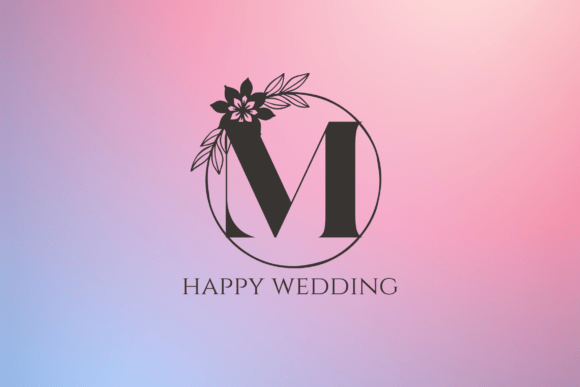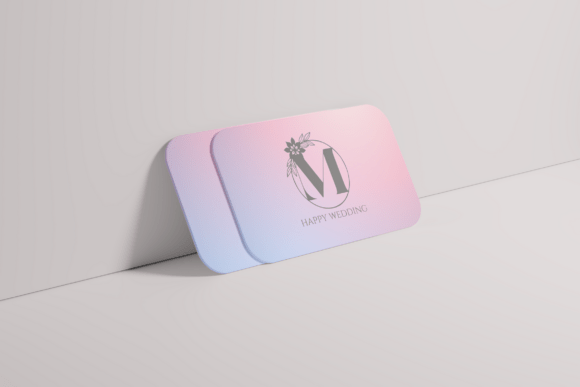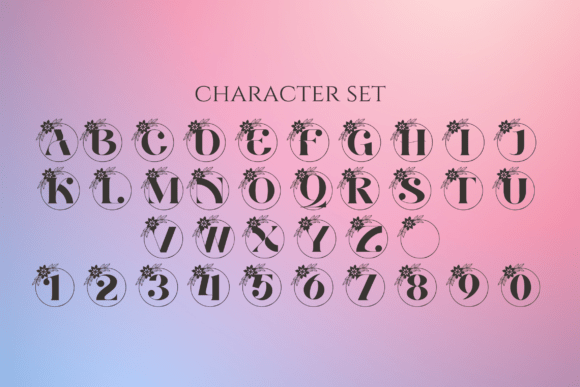
Introducing Amour Monogram Font: Elevate Your Designs with Elegance
Have you ever been in the midst of crafting a project, only to find yourself stuck on the perfect font? I recall a particularly frustrating experience while designing a wedding invitation for a close friend. The invitation needed to exude a sense of luxury and sophistication, but no matter which font I chose, it seemed to fall flat. That’s when I discovered Amour Monogram Font – a game-changer for anyone looking to infuse their designs with a touch of elegance and versatility.
The Perfect Blend of Style and Versatility
Amour Monogram Font is meticulously crafted to breathe life into majestic monograms, logos, and bespoke branding. Its tastefully refined letterings, complemented by intricate detailing, make it an irresistible choice for nuptial invitations, high-end branding, sophisticated stationery, and custom-crafted projects. Whether you’re creating an upscale logo or designing a cherished memento, Monogram Font infuses every endeavor with a unique allure and a timeless charm.
• ✨ Elegant and refined lettering that adds a touch of sophistication to any design
• ✅ Extensive range of OpenType features, glyphs, and stylistic alternates to experiment with
• 💫 Perfect for creating custom monograms, logos, and branding materials
• 👍 Highly versatile and adaptable to various design projects
While Amour Monogram Font is an exceptional choice, there are a few minor considerations to keep in mind:
• ⚠️ Some users may find the font’s intricacy challenging to pair with other fonts
• 🤔 Limited availability of certain characters or symbols, which may require additional design workarounds
The Designer Inspiration Behind Amour Monogram Font
Amour Monogram Font was inspired by the classic elegance of 18th-century European typography. The designer aimed to create a font that would evoke a sense of luxury, sophistication, and romance, while still being versatile and adaptable to various design projects. The result is a beautiful, intricate font that adds a touch of refinement to any design.
Q: What makes Amour Monogram Font unique?
A: Amour Monogram Font stands out due to its elegant and refined lettering, intricate detailing, and extensive range of OpenType features, glyphs, and stylistic alternates.
Q: Is Amour Monogram Font suitable for digital and print designs?
A: Absolutely! Amour Monogram Font is designed to work beautifully in both digital and print environments, making it a versatile choice for various design projects.